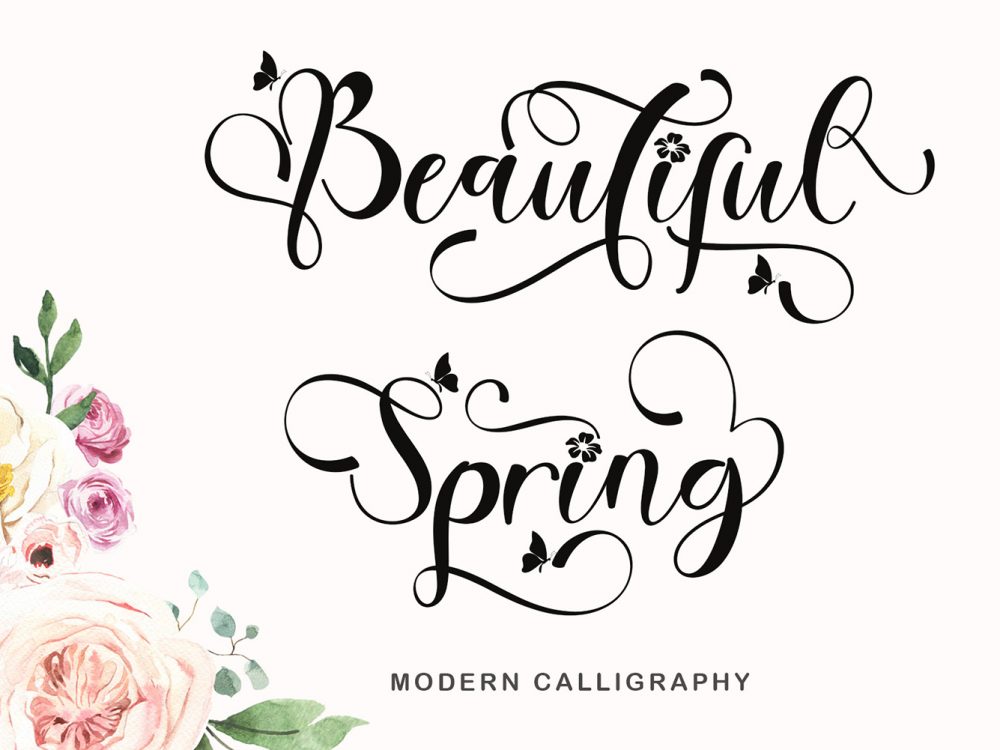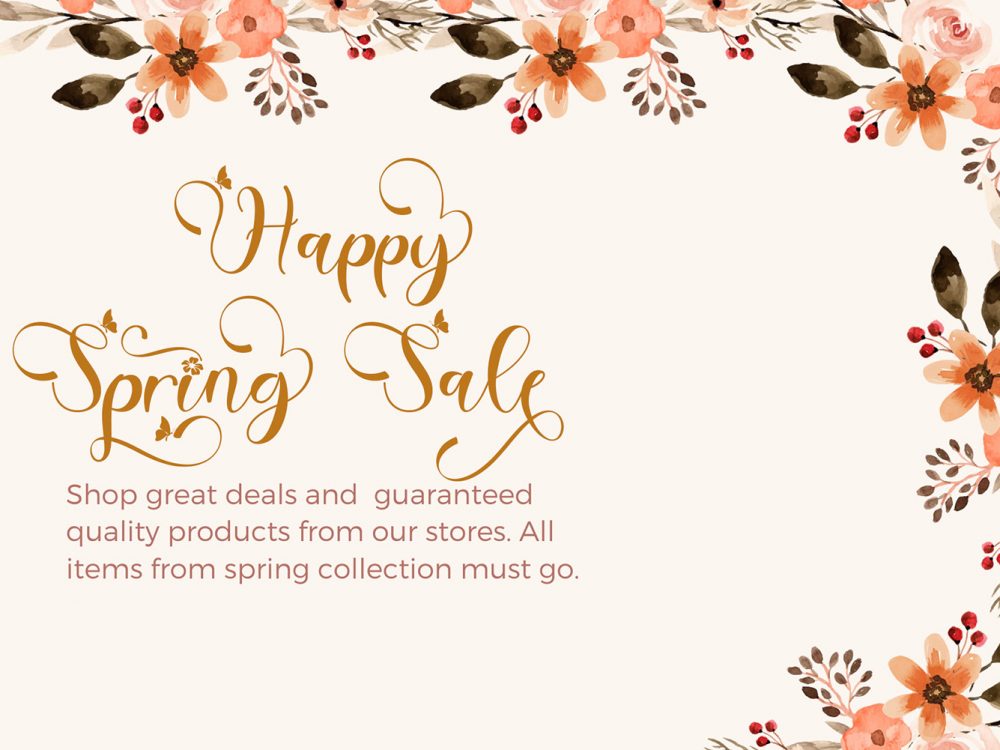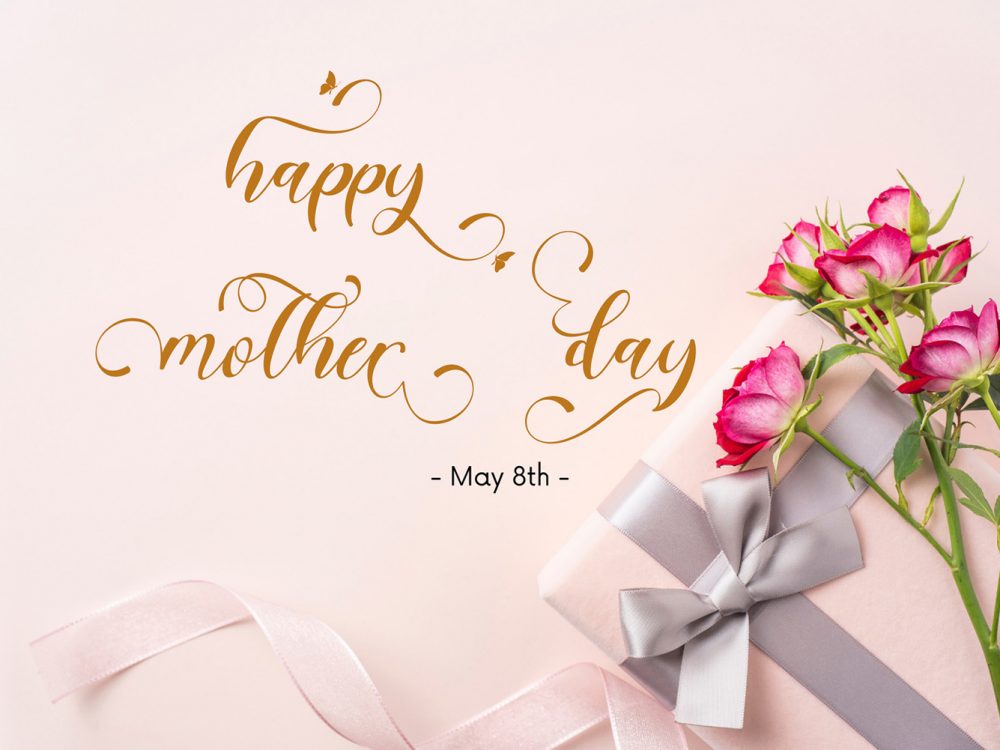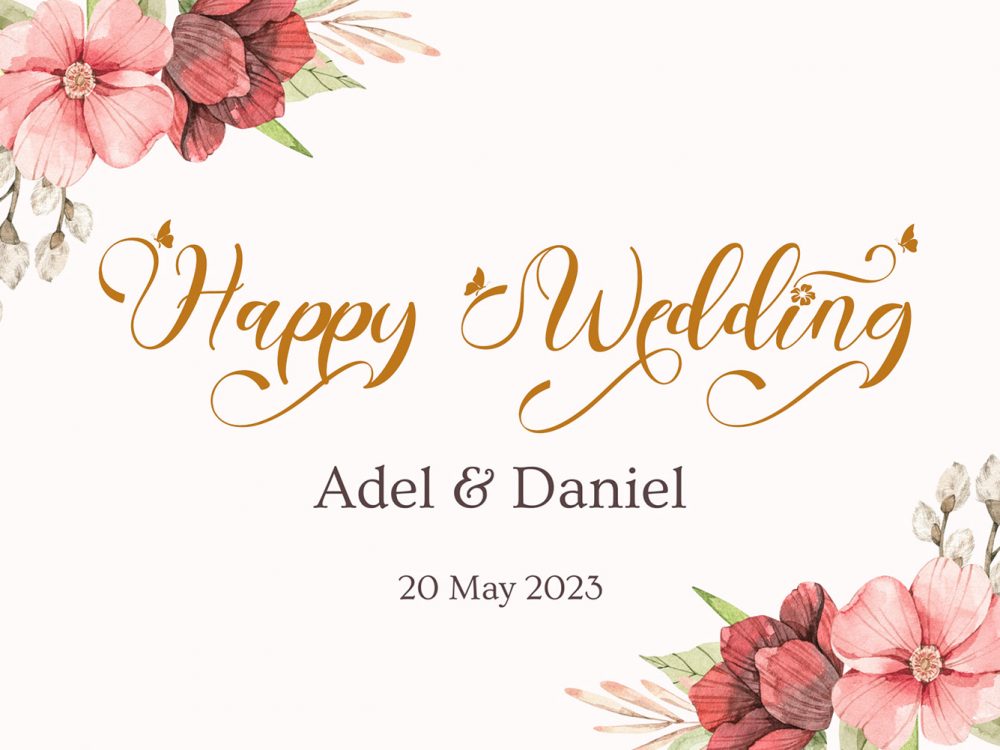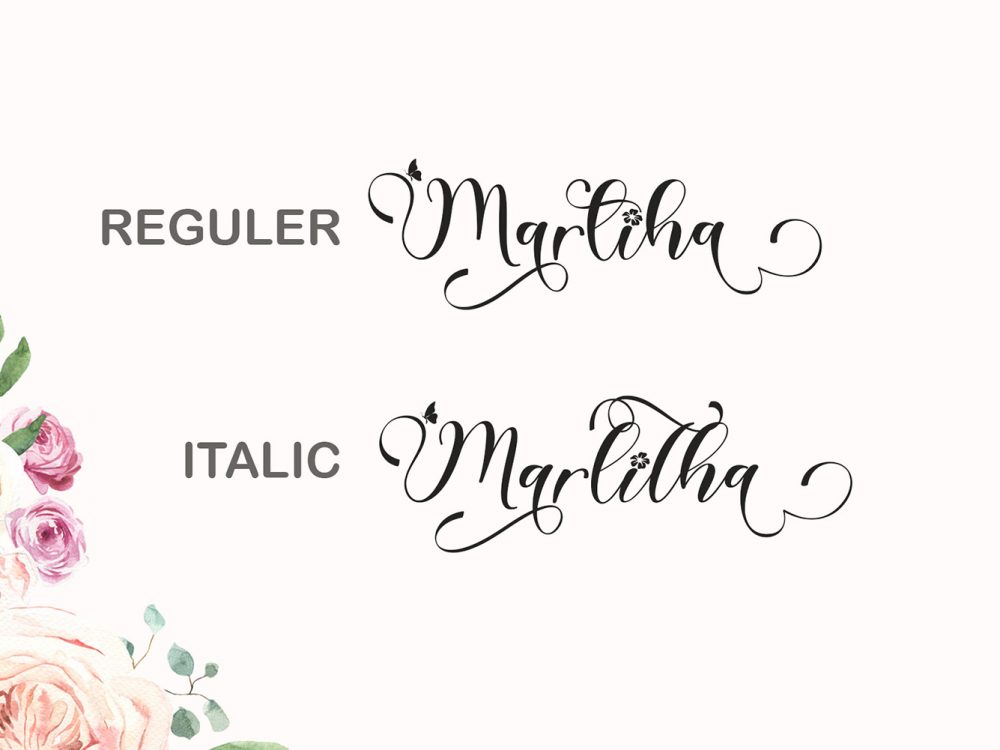
Beautiful Spring Free Font
Beautiful Spring Free Font is a beautiful handwritten font that simulates detailed brush writing and is very suitable for creating various design projects that require a scripted font. These can be posters, invitations, cards, branding, flyer prints, etc. If you wish to access more features and use them for commercial work please buy the full version.